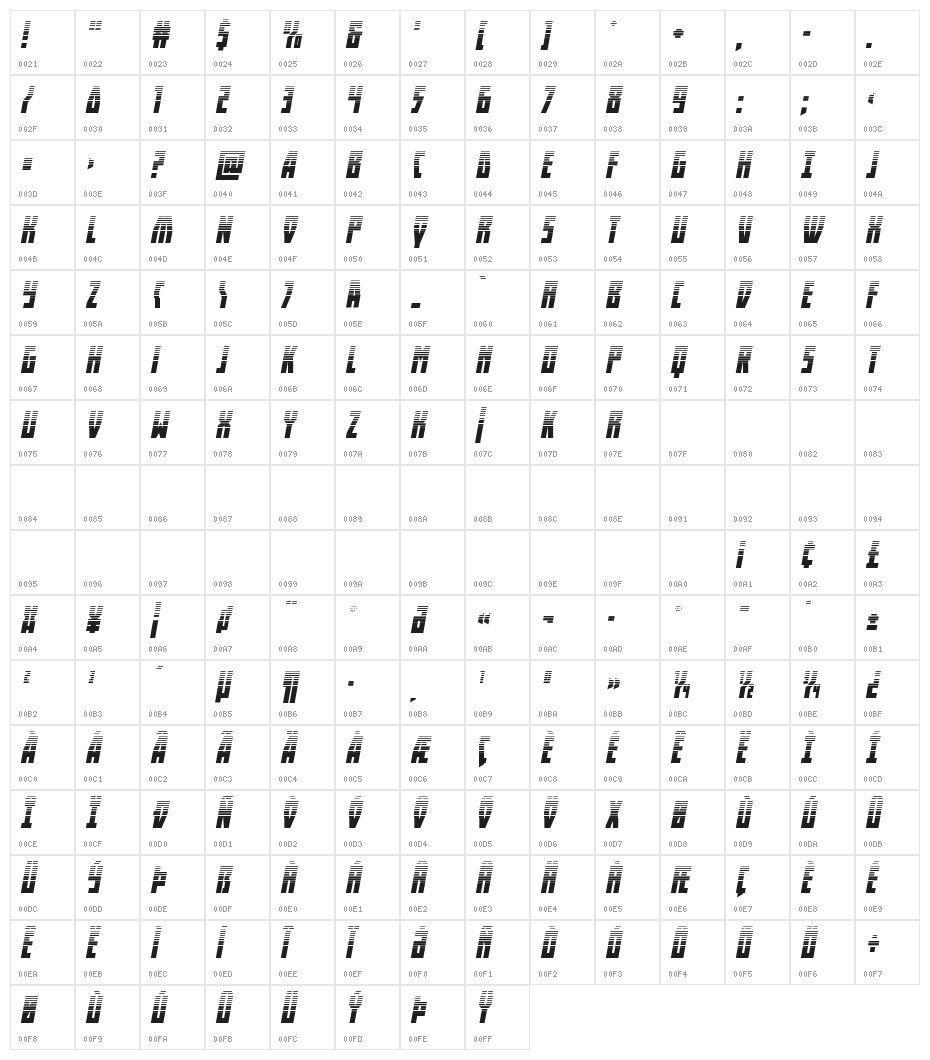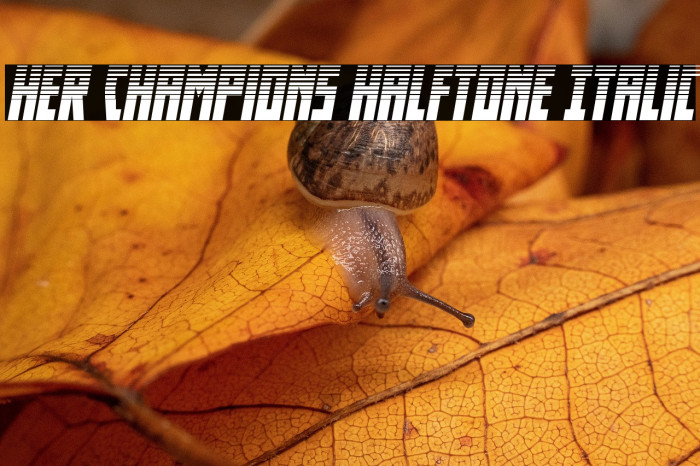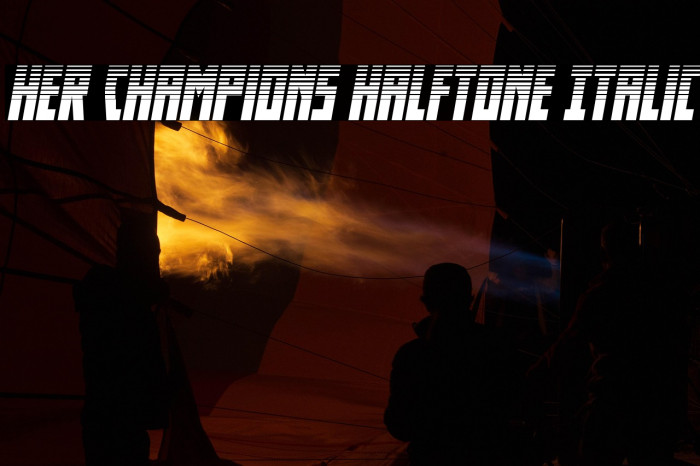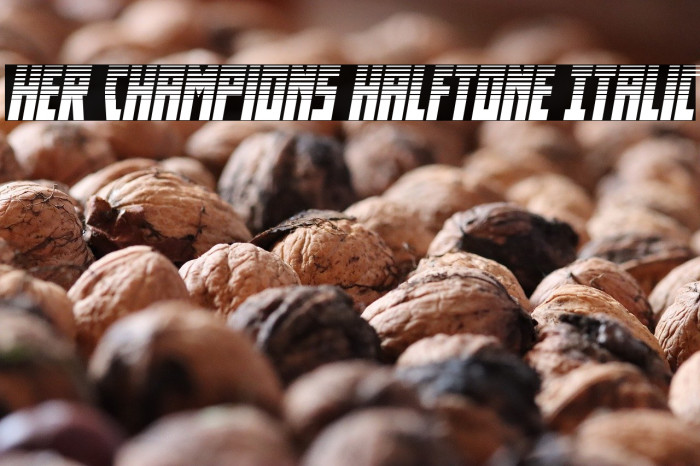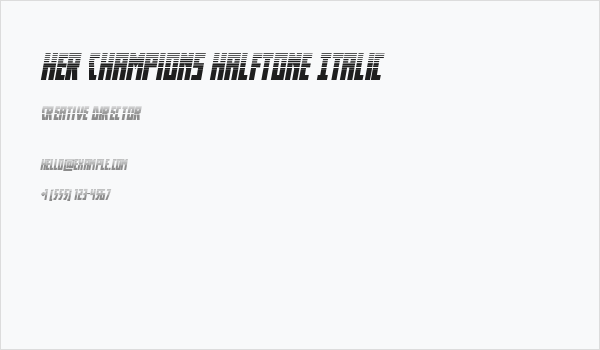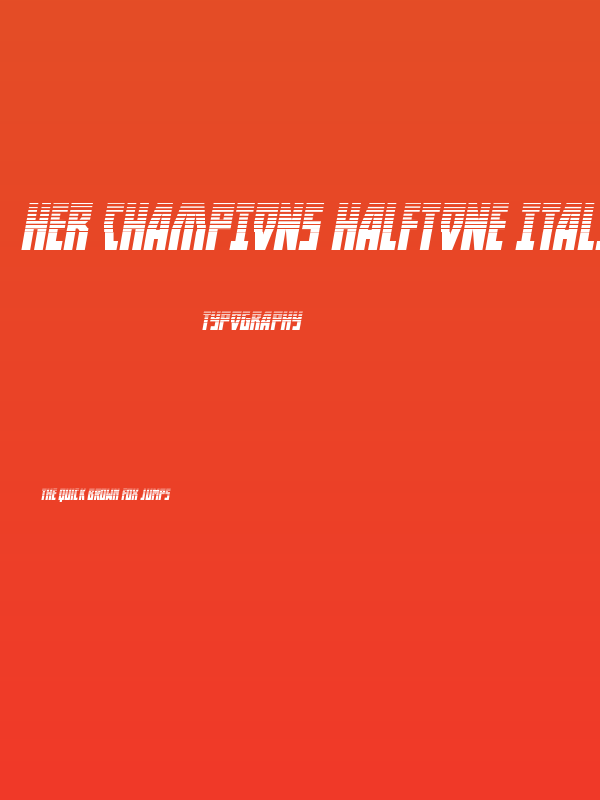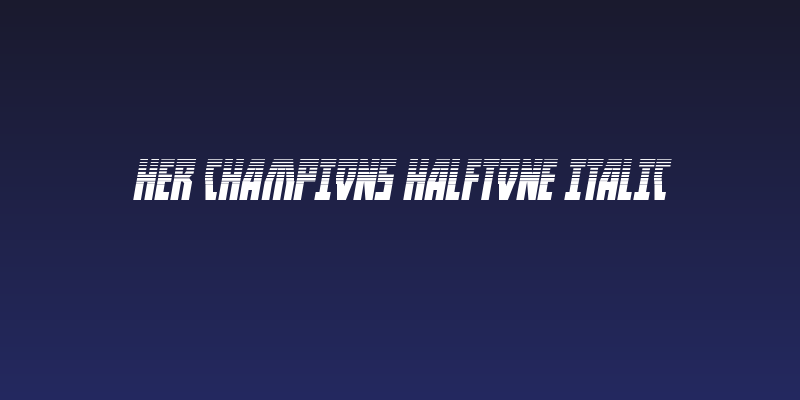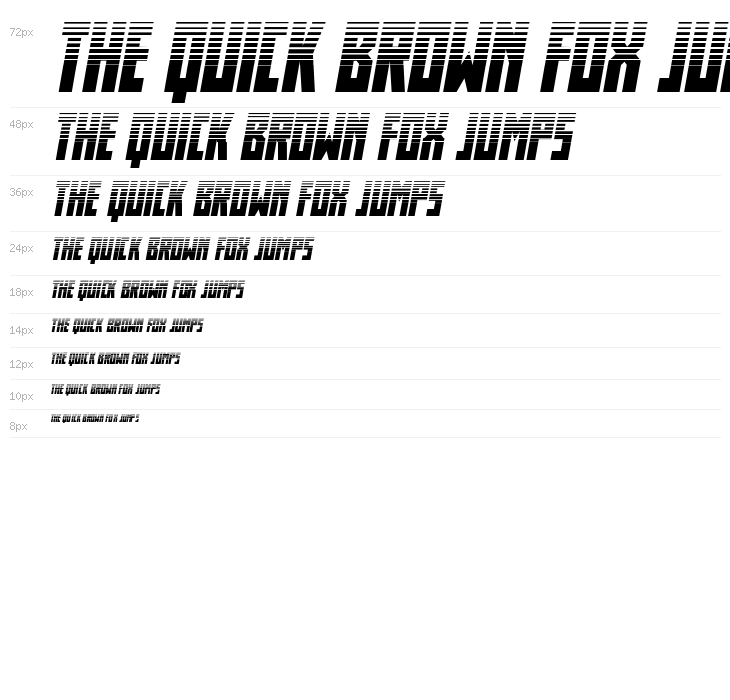
Her Champions Halftone Italic Font
Her Champions Halftone Italic Description
This font features a bold, dynamic style with a halftone effect that gives it a modern and edgy appearance. The characters are italicized, adding a sense of motion and urgency. The uppercase and lowercase letters, as well as numbers and special characters, are designed with a consistent pattern of horizontal lines that create a gradient effect from top to bottom. This unique design element makes the font stand out, making it ideal for attention-grabbing headlines or logos. The spacing between characters is tight, enhancing the compact and impactful look of the text. The overall style is decorative and futuristic, suitable for projects that require a bold and distinctive visual identity.
Proposed ProjectsIdeal for use in sports branding, music album covers, event posters, and any project requiring a bold, modern aesthetic.